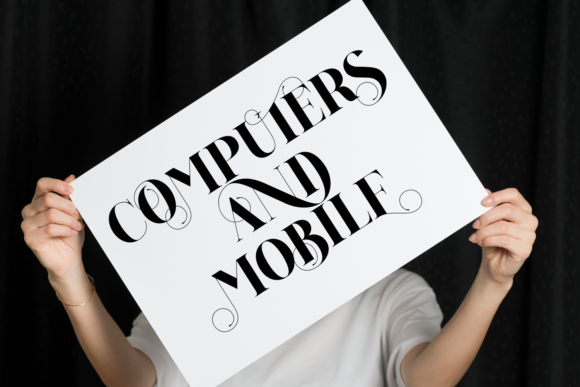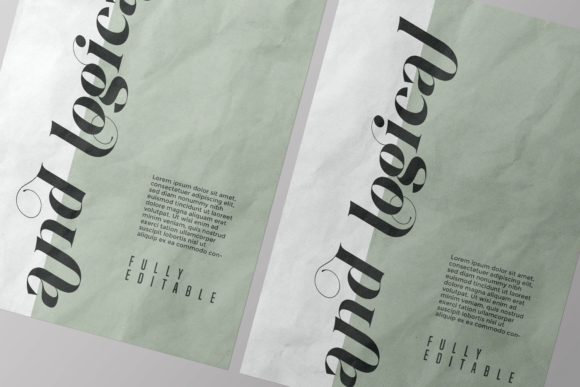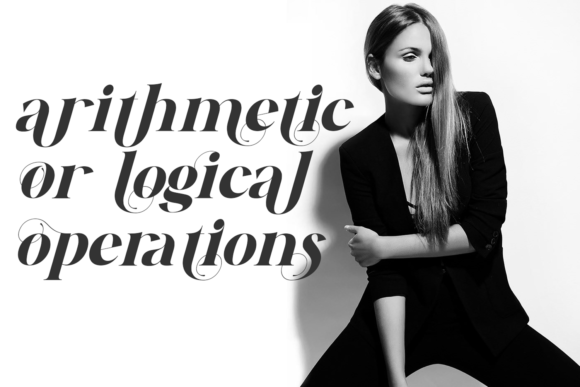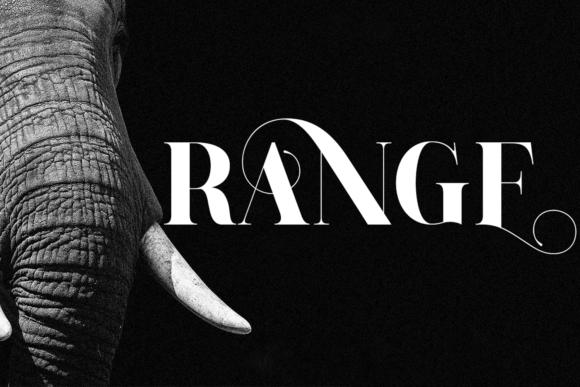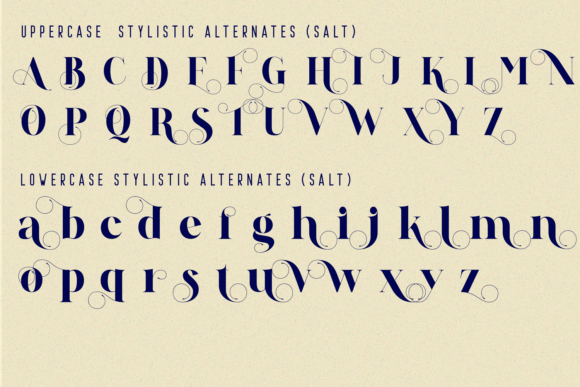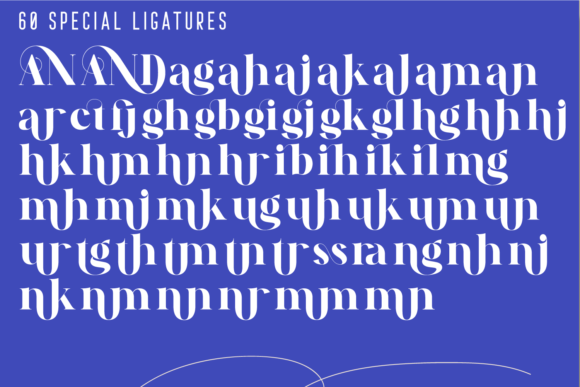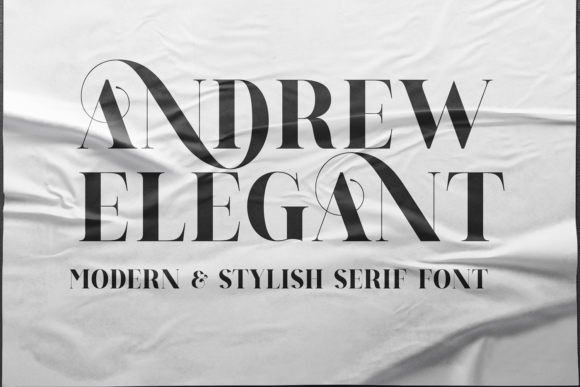
The Quest for the Perfect Font: Discovering Andrew Elegant
I’ll never forget the time I was working on a wedding invitation project, and my client asked for a font that was both classic and modern. I scoured the internet, tried out countless fonts, but nothing seemed quite right. That was until I stumbled upon Andrew Elegant, a game-changing serif font that has since become a staple in my design toolkit.
What is Andrew Elegant?
Andrew Elegant is a modern and vintage serif font that effortlessly blends classic and modern styles. With its numerous alternatives, this font is perfect for logotypes, branding, wedding monograms and invitations, blog headlines, and much more. The best part? It’s PUA encoded, making it easy to access all the glyphs and swashes you need.
- ✨ Elegant and sophisticated design that’s perfect for high-end projects
- ✅ Highly versatile with multiple alternatives and swashes
- 📚 Suitable for a wide range of projects, from logotypes to blog headlines
While Andrew Elegant is an amazing font, there are a few things to keep in mind:
- ⚠️ Some users may find the font a bit too ornate for certain projects
- 🤔 Limited use of uppercase letters may require some creative workarounds
The Story Behind Andrew Elegant
While the true story behind Andrew Elegant remains a mystery, it’s clear that the designer was inspired by the elegance of classic serif fonts and the sophistication of modern typography. With its unique blend of vintage and contemporary elements, Andrew Elegant is a true masterpiece.
Q: Is Andrew Elegant suitable for body text?
A: While Andrew Elegant is an amazing font, it may not be the best choice for long-form body text. Its elegant design and ornate details make it more suitable for headlines, titles, and short-form content.